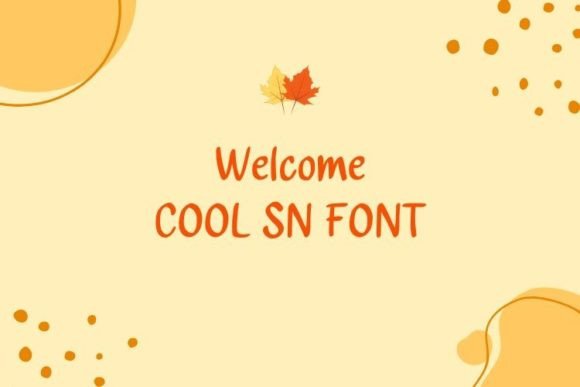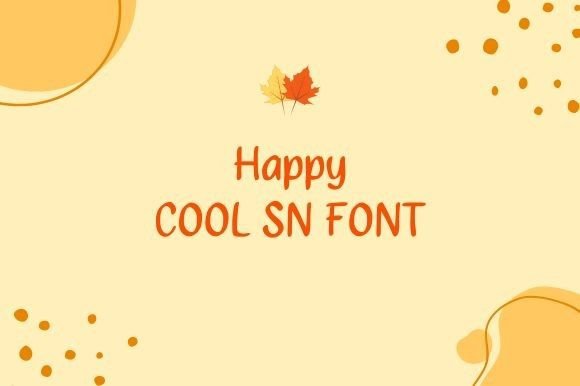
Introducing Cool Sn Font: The Perfect Addition to Your Crafty Ideas
Are you a designer or crafter looking for a unique and fresh handwritten font to elevate your creative projects? Look no further than Cool Sn Font! This neat and stylish font is sure to add a touch of personality and whimsy to your designs, making them stand out from the crowd.
What is Cool Sn Font?
Cool Sn Font is a beautifully crafted handwritten font that exudes a sense of playfulness and sophistication. Its clean lines, subtle curves, and balanced letterforms make it perfect for a wide range of creative applications, from crafting and scrapbooking to graphic design and digital art.
Key Features of Cool Sn Font
- Handwritten style: Cool Sn Font boasts a genuine handwritten look that adds a personal touch to your designs.
- Neat and fresh: The font’s clean and modern aesthetic makes it perfect for projects that require a crisp, contemporary feel.
- Versatile: Use Cool Sn Font for a variety of creative projects, including crafts, scrapbooking, graphic design, and digital art.
- Easily readable: The font’s clear and balanced letterforms ensure that your text is easy to read, even at smaller sizes.
How to Use Cool Sn Font in Your Creative Projects
Cool Sn Font is incredibly versatile and can be used in a variety of creative projects. Here are a few ideas to get you started:
- Crafting and scrapbooking: Add a personal touch to your handmade crafts and scrapbook pages with Cool Sn Font.
- Graphic design: Use Cool Sn Font in your graphic design projects, such as brochures, flyers, and posters.
- Digital art: Incorporate Cool Sn Font into your digital art, including illustrations, paintings, and mixed media projects.
- Stationery and invitations: Create beautiful and unique stationery and invitations with Cool Sn Font.
Tips for Getting the Most Out of Cool Sn Font
To get the most out of Cool Sn Font, here are a few tips:
- Experiment with colors: Cool Sn Font looks great in a variety of colors, so don’t be afraid to experiment and find the perfect hue for your project.
- Mix and match: Combine Cool Sn Font with other fonts and design elements to create a unique and eye-catching design.
- Play with sizes: Use Cool Sn Font in a range of sizes to add visual interest and hierarchy to your design.
Cool Sn Font is a fantastic addition to any designer’s or crafter’s toolkit. Its unique blend of playfulness and sophistication makes it perfect for a wide range of creative projects. With its clean lines, subtle curves, and balanced letterforms, Cool Sn Font is sure to add a touch of personality and whimsy to your designs. So why wait? Download Cool Sn Font today and start creating something amazing!